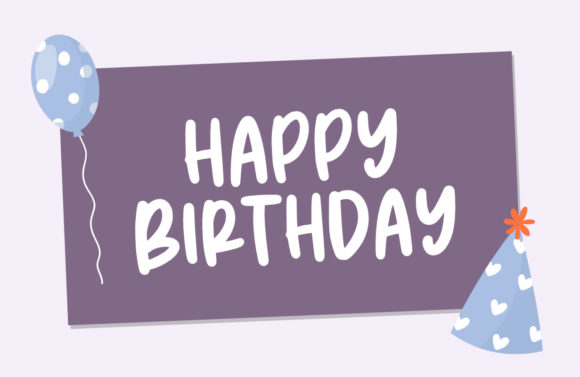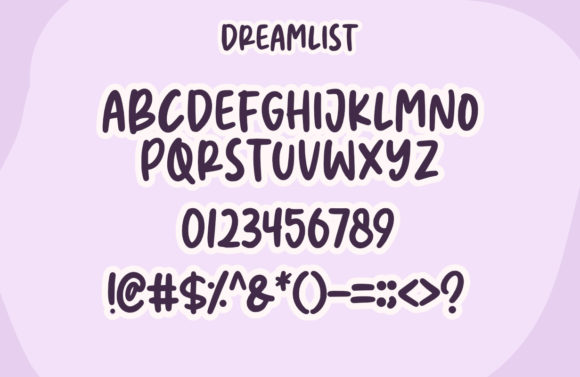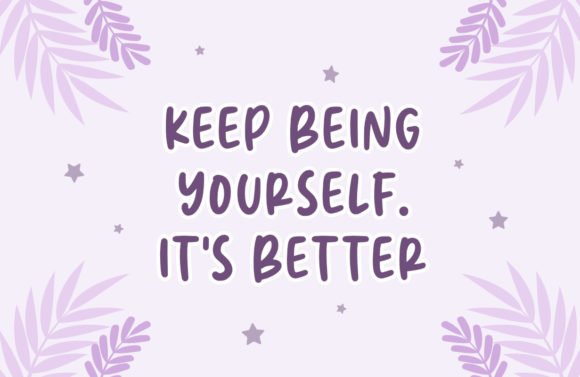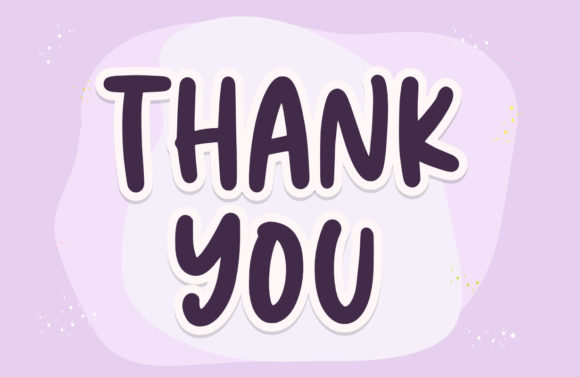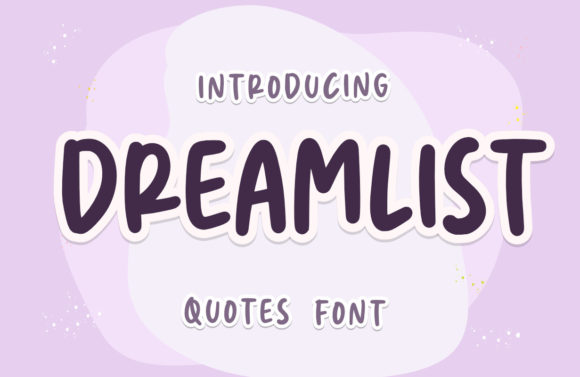
Dreamlist Font: The Ultimate Choice for Creative Projects
Are you tired of using the same old fonts for your creative projects? Look no further than the Dreamlist Font, a laid-back, friendly, and quirky handwritten font that’s sure to add a touch of personality to your designs. With its chunky characters and informal style, Dreamlist is the perfect choice for a wide range of creations, from crafts and DIY projects to digital designs and marketing materials.
What Makes Dreamlist Font So Special?
Dreamlist Font is a unique and eye-catching font that’s designed to help you add a personal touch to your designs. Its chunky characters and informal style give it a friendly and approachable feel that’s perfect for creating designs that are relaxed, casual, and fun. Whether you’re working on a craft project, creating social media graphics, or designing marketing materials, Dreamlist Font is the perfect choice.
Key Features of Dreamlist Font
• Laid-back and friendly style: Dreamlist Font has a relaxed, informal style that’s perfect for creating designs that are casual and fun.
• Chunky characters: The font features chunky characters that are easy to read and add a touch of personality to your designs.
• Quirky and playful: Dreamlist Font has a quirky and playful feel that’s perfect for adding a touch of whimsy to your designs.
• Handwritten style: The font has a handwritten style that’s perfect for creating designs that are personal and unique.
Uses for Dreamlist Font
Dreamlist Font is a versatile font that can be used for a wide range of creative projects, including:
• Crafts and DIY projects: Use Dreamlist Font to add a personal touch to your craft projects, such as handmade cards, gift tags, and scrapbooking pages.
• Digital designs: Use the font to create eye-catching social media graphics, blog posts, and website headers.
• Marketing materials: Use Dreamlist Font to add a touch of personality to your marketing materials, such as brochures, flyers, and posters.
• Stationery and invitations: Use the font to create personalized stationery, invitations, and greeting cards.
Tips for Using Dreamlist Font
Here are a few tips for using Dreamlist Font in your designs:
• Use it with bold colors: Dreamlist Font looks great with bold, bright colors that match its playful and quirky style.
• Pair it with simple backgrounds: The font works best with simple backgrounds that don’t compete with the text.
• Experiment with different sizes: Try using Dreamlist Font in different sizes to add visual interest to your designs.
• Use it consistently: Use Dreamlist Font consistently throughout your design to create a cohesive look.
Dreamlist Font is a unique and versatile font that’s perfect for adding a personal touch to your creative projects. With its laid-back, friendly, and quirky style, it’s the perfect choice for a wide range of designs, from crafts and DIY projects to digital designs and marketing materials. So why not give Dreamlist Font a try and see how it can add a touch of personality to your designs?